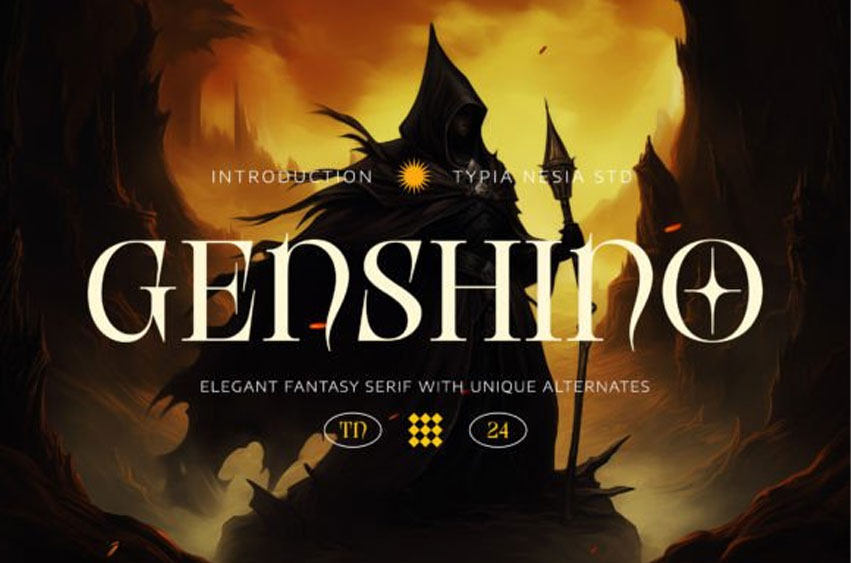
Genshino Font is an elegant fantasy serif font featuring unique alternates that blend elegance with a touch of whimsy. Its graceful and imaginative design elements make it perfect for projects that require a combination of elegance and fantasy, such as branding with fantasy themes, book covers, fantasy-themed projects, wedding invitations, and editorial design, fantasy gaming, packaging, logo design, menu design and any more projects that require a touch of elegance, fancy and fantasy.
The versatile font style ensures it looks stunning in both print and digital formats, adding a magical touch to logos, headlines, and body text.